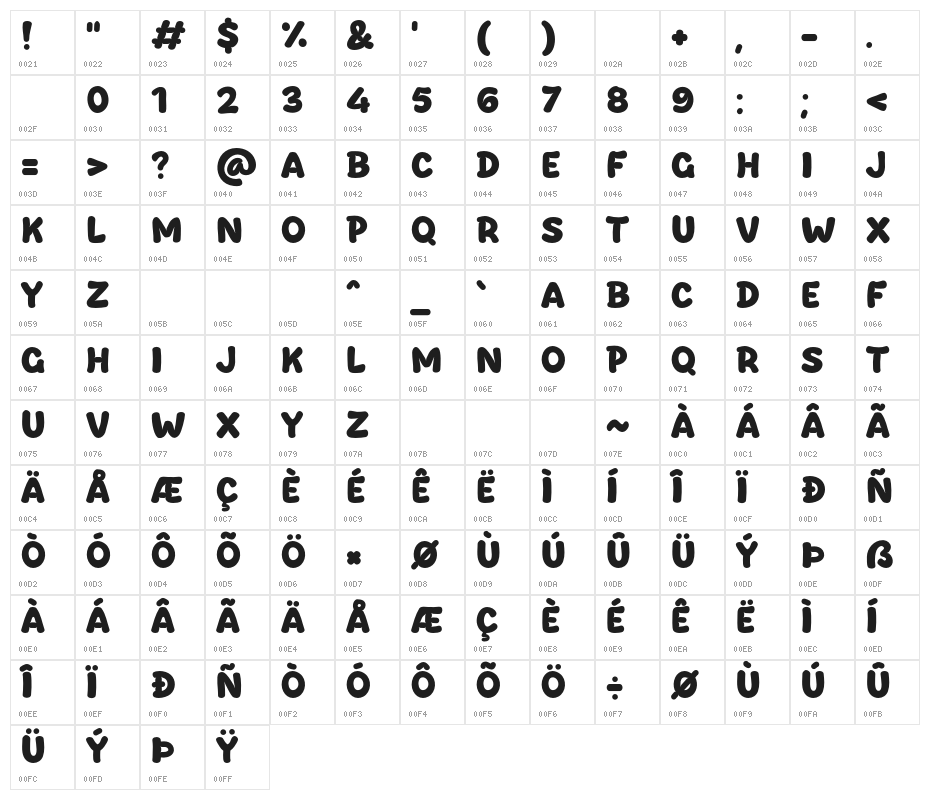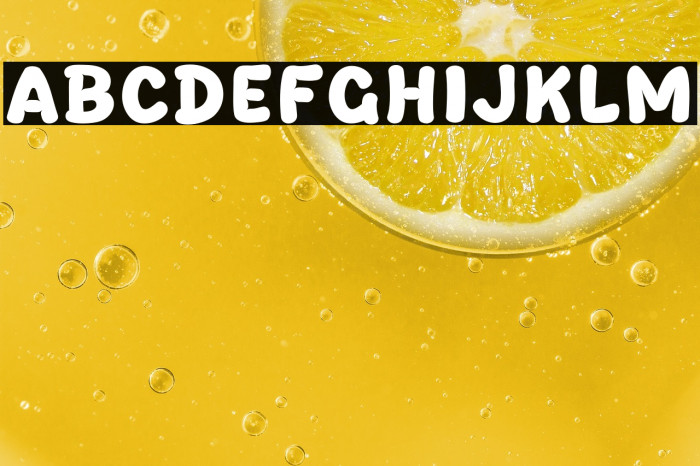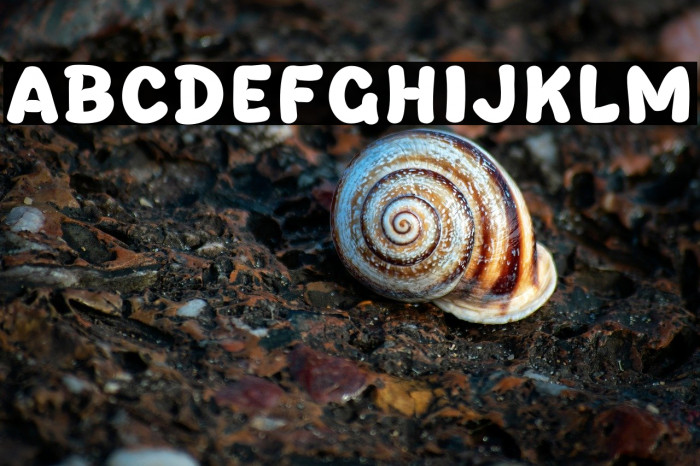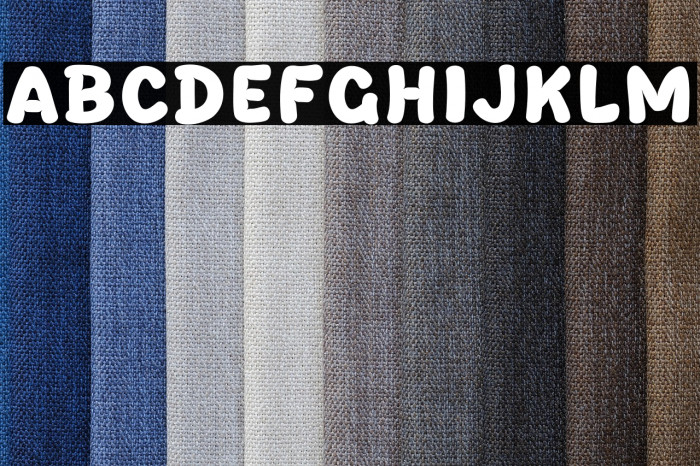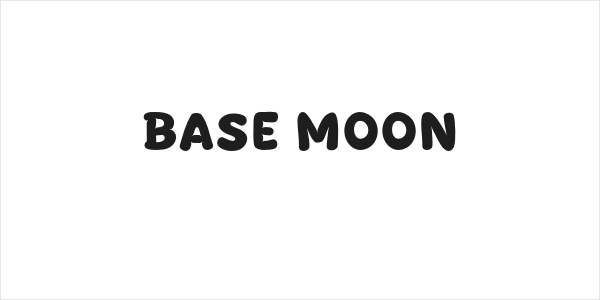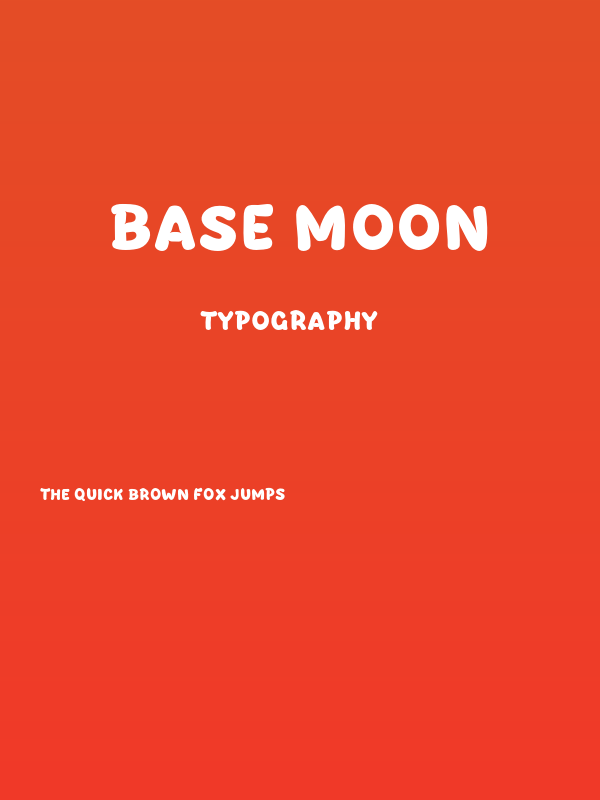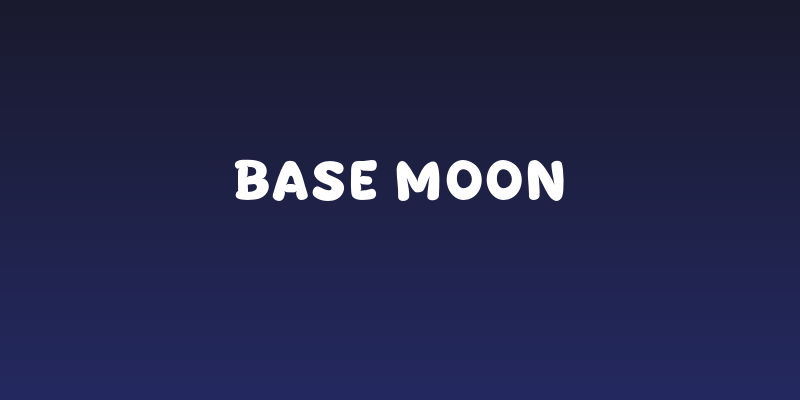
Base Moon Font
Base Moon Description
This font features a playful and bold style with rounded edges and a bubbly appearance. The characters are thick and uniform, giving it a friendly and approachable look. The uppercase and lowercase letters maintain a consistent style, with slight variations in curvature that add to its charm. The numerals and special characters are equally bold, ensuring readability and visual impact. This font's design is reminiscent of handwritten or cartoonish styles, making it suitable for creative and informal applications.
| Overall Style | Playful, Cartoonish |
| Proposed Projects | Ideal for children's books, playful branding, posters, and greeting cards. |